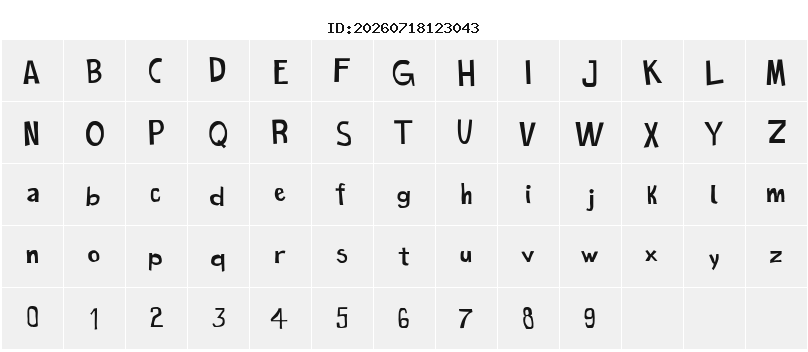
• Font Name: Cartoon Toy
• Manufacturer: Galdino Otten
About Cartoon Toy.ttf
Cartoon Toy.ttf is a modern, elegant sans-serif font designed for ultimate readability and visual harmony. Perfect for branding, headlines, web design, and print materials.